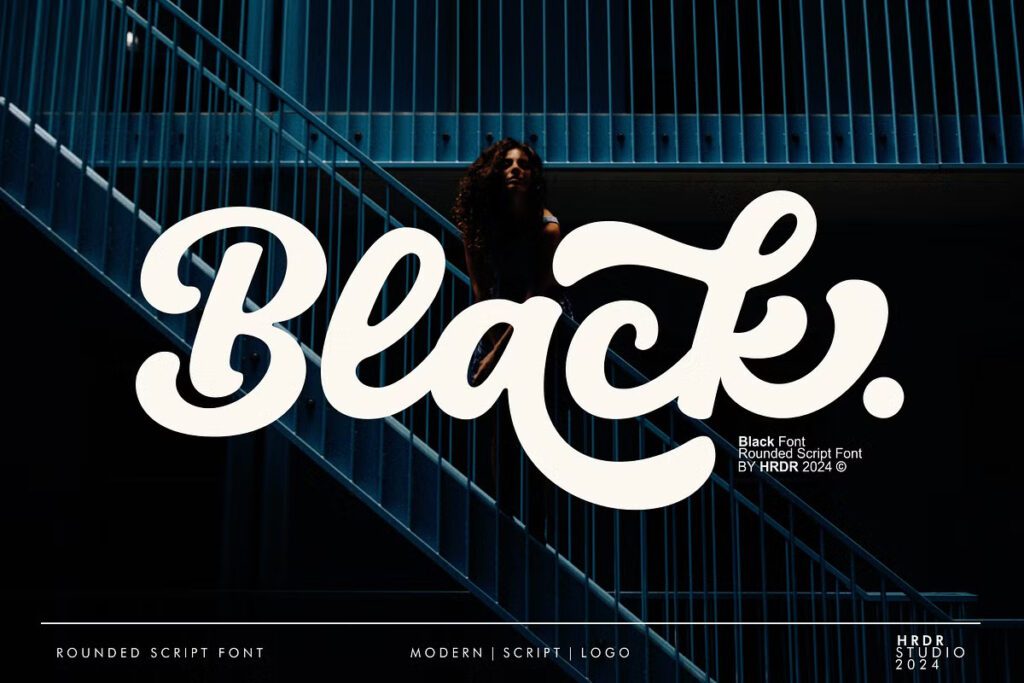
Black Rounded Script Font: Retro Elegance Meets Modern Design
Introducing Black, a bold and curvy rounded script font that brings a retro yet elegant charm to any design. Whether you’re working on headlines, logos, branding, or posters, Black offers a handwritten style that adds a fun and personal touch to your projects. It’s the perfect choice for designers who want to make a unique impression with their work.
Why Choose Black Rounded Script Font?
Black isn’t just any script font—it combines boldness with curves, offering a delightful retro vibe that works across multiple design platforms. Its versatility allows you to create everything from artistic logos to playful posters, ensuring that your designs always stand out.
Key Features of Black Rounded Script Font
Uppercase and Lowercase LettersThis font includes a complete set of uppercase and lowercase characters, perfect for mixing and matching to create unique typographic compositions.
Multilingual SupportBlack comes with multilingual support, allowing you to use it in various languages and cater to a global audience.
Ligatures and Stylistic AlternatesTo add more creative flair to your design, Black is equipped with ligatures and stylistic alternates (Ss01, Ss02, Ss03, Ss04), providing endless possibilities for customization.
New Alternates and Swash StyleAs of its September 2024 update, Black now includes new alternate characters and swash styles, giving your designs even more variety and personality.
Ideal Uses for Black Rounded Script Font
Artistic Logos: The bold curves of Black make it an excellent choice for logos that need to convey creativity and charm.
Creative Branding: Whether you’re working on product packaging or a visual identity, Black helps your brand stand out with its expressive, handwritten style.
Posters and Headlines: Need to grab attention? Black’s retro vibe is perfect for eye-catching headlines and posters that leave a lasting impression.
Fun Social Media Graphics: Add a playful and engaging touch to your social media posts with Black’s personal and energetic script style.
Why Black Stands Out
Black’s combination of boldness, retro charm, and versatile features makes it a must-have for any designer’s font collection. Whether you’re working on a branding project or creating a fun, playful design, Black is a fantastic tool that will help your designs shine.